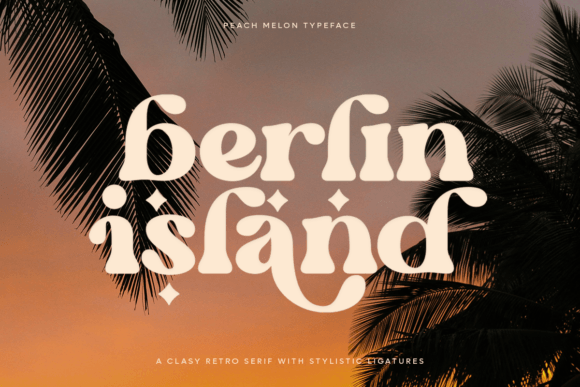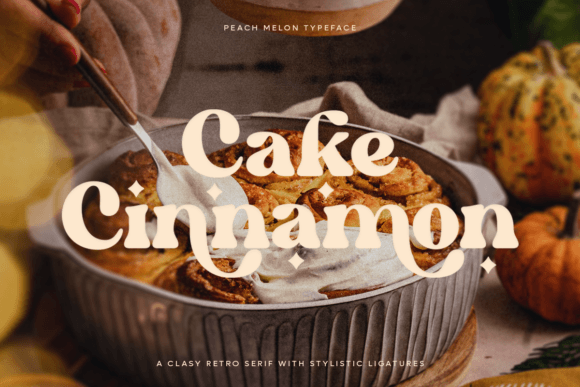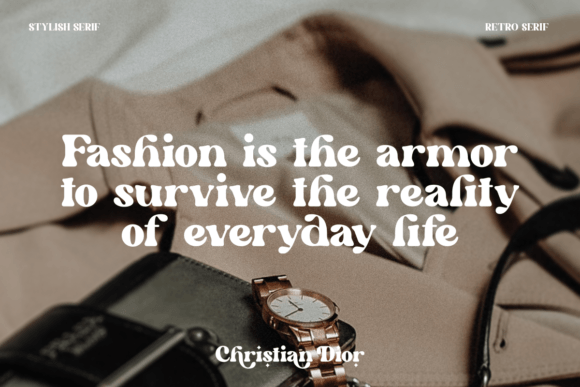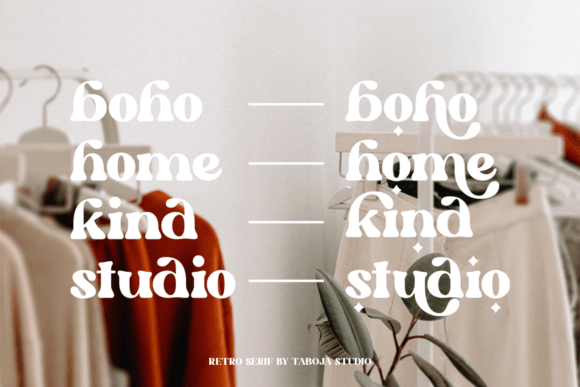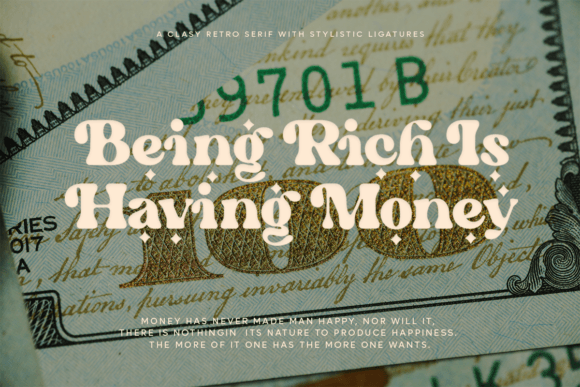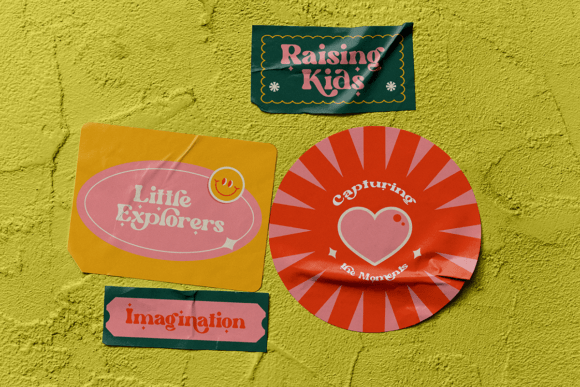
Introduction to Peach Melon Font
Have you ever been stuck on a creative project, scrolling through font options, and suddenly, a font catches your eye? That’s exactly what happened to us when we stumbled upon the Peach Melon Font. Its unique blend of sophistication and grooviness instantly sparked inspiration for our next design project. As designers, we know the importance of having the right font to elevate our work, and that’s exactly what Peach Melon Font promises to deliver.
As a valuable resource for designers, Peach Melon Font is perfect for branding projects, logos, and website headers. Its versatility and high-quality design make it a must-have for any creative project. With a wide range of alternatives and ligatures, you can create a truly unique visual experience that sets your design apart from the rest.
Key Features of Peach Melon Font
- High-quality, vector-based font design for a crisp and clear display on various devices and resolutions.
- Transparent background, allowing for seamless integration with any design or creative project.
- Designed to be versatile and suitable for a wide range of creative projects, from digital art to print materials.
- Includes a range of characters, including uppercase and lowercase letters, numbers, and special characters, for a complete typing solution.
- Can be scaled up or down without losing quality, making it ideal for use in various design contexts and sizes.
- Perfect for designers and artists looking for a unique and eye-catching design resource for their next creative project.
Honest Review: Peach Melon Font
I recently stumbled upon the Peach Melon Font and I must say it’s a great addition to my design resource library. The free download option was a pleasant surprise, making it easily accessible for anyone looking to elevate their creative project.
What works well: ✨ The font’s high quality and modern design make it perfect for a variety of projects, from digital signage to branding materials. The transparent background option also provides endless possibilities for creative applications.
However, I do have a few limitations to mention: ⚠️ The font’s versatility is somewhat limited by its playful and cursive nature, making it less suitable for formal or technical projects. Additionally, some characters may not be available in certain languages, which could be a problem for global design projects.
Overall impression: I’m thoroughly impressed with the Peach Melon Font and would definitely recommend it to designers looking for a fun and modern addition to their design library. With its high quality and free download option, it’s a great resource to have at your disposal.
Peach Melon Font is a high-quality, free download design resource ideal for creative projects. This font features a unique, playful style with a transparent background, making it perfect for use in a variety of applications.
Common Use Cases for Peach Melon Font
Peach Melon Font is ideal for use in a variety of creative projects, including social media graphics, blog posts, and marketing materials. Its unique style and transparent background make it perfect for use in digital designs.